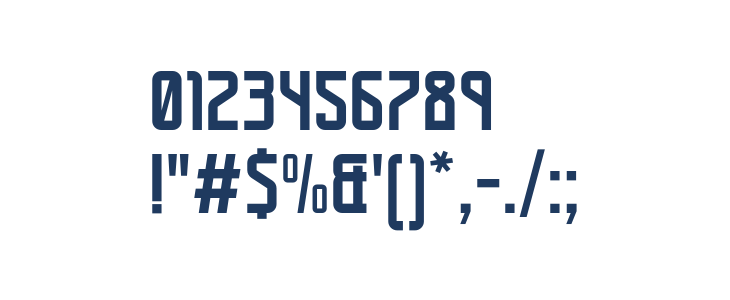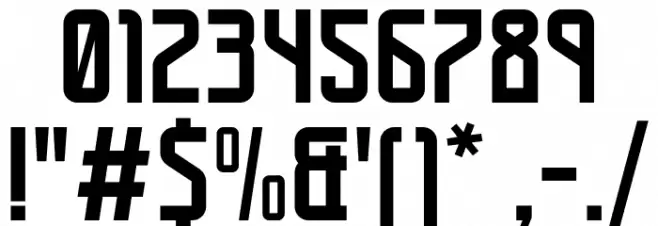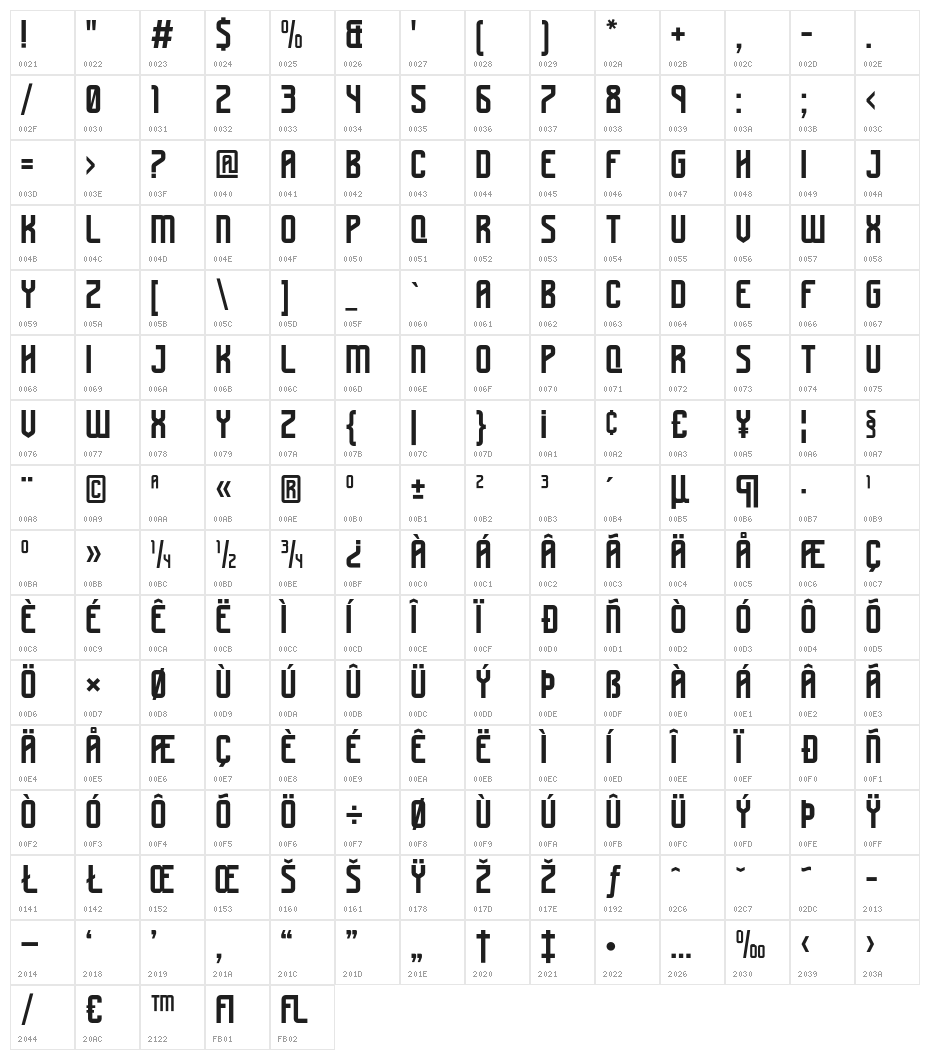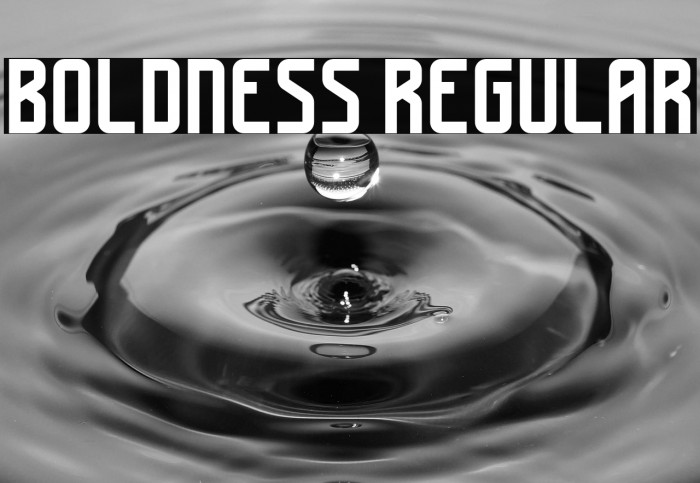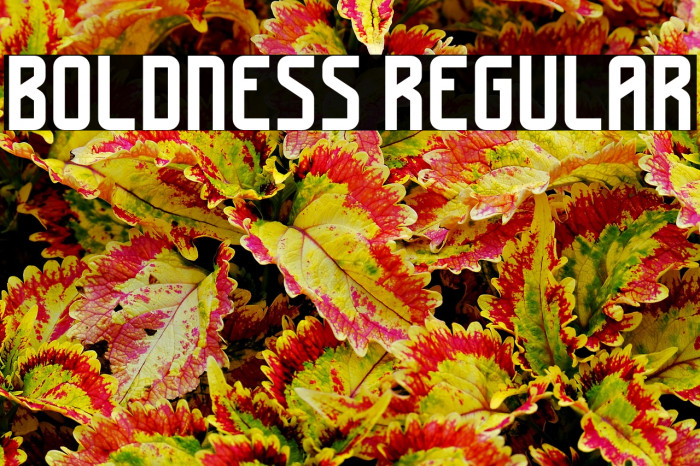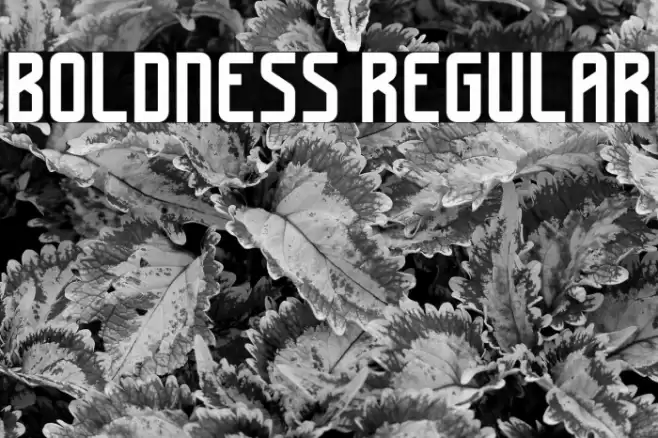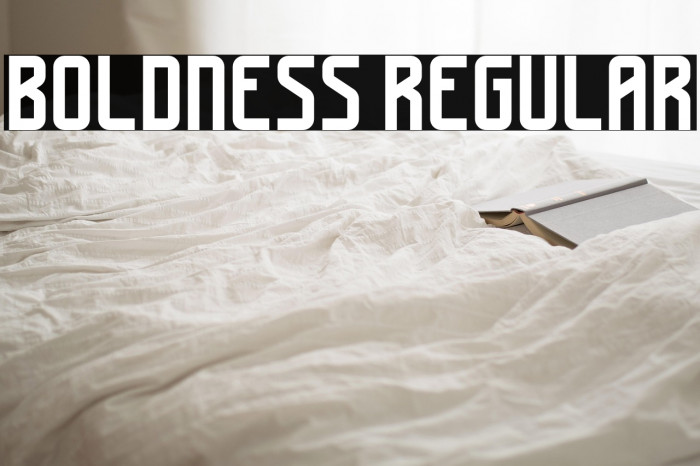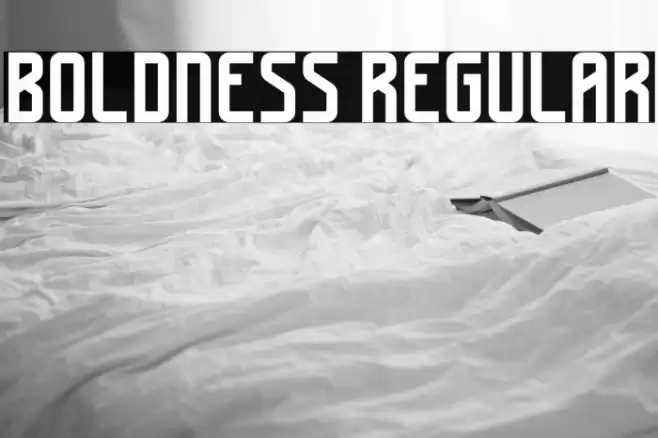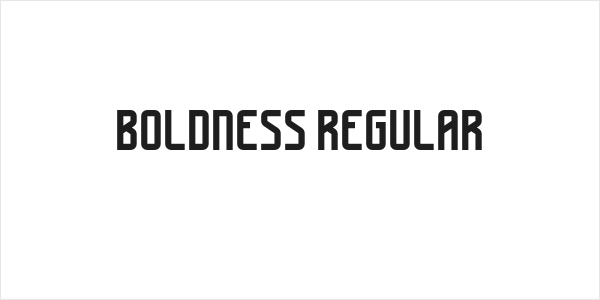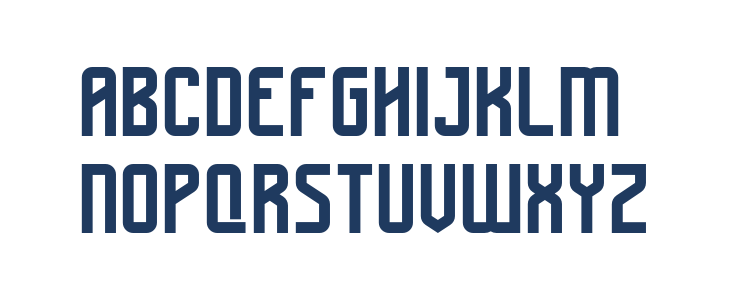
Boldness Regular Font
Boldness Regular Description
This font features a bold, geometric design with a modern and structured appearance. The characters are uniform in width, creating a monospaced effect that enhances readability and precision. The straight lines and sharp angles give it a futuristic and technical feel, making it suitable for digital and tech-related projects. The uppercase and lowercase letters maintain a consistent height, while the numerals and special characters are designed to match the overall aesthetic. The font's clean and minimalistic style makes it versatile for various design applications.
| Proposed Projects | Ideal for tech branding, digital interfaces, posters, and modern editorial layouts. |